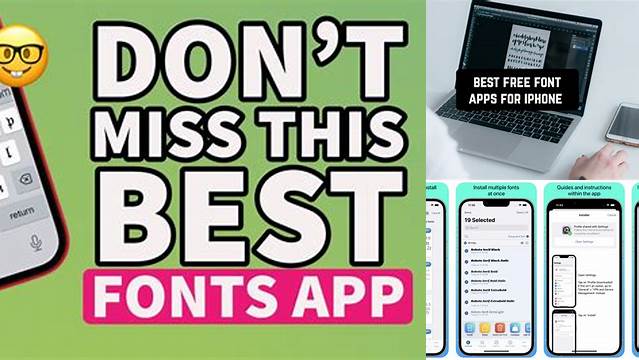
Best Free Font Apps For IPhone (No Subscription)
Hey guys! Finding the perfect font for your iPhone can be a game-changer, whether you're sprucing up your social media posts, creating eye-catching stories, or just want to add a personal touch to your texts. But let's be real, nobody wants to get stuck with yet another subscription. So, what are the best free font app for iPhone no subscription? This article dives deep into the top free font apps for iPhones that offer a variety of stylish fonts without costing you a dime. We'll explore their features, ease of use, and how they can help you elevate your content. Let's jump in and discover how to make your iPhone typography stand out without breaking the bank!
H2: Top Free Font Apps for iPhone
When it comes to finding the best free font app for iPhone no subscription, the options can seem overwhelming. But don't worry, we've done the legwork for you! There are several apps available on the App Store that offer a wide range of fonts without requiring any subscriptions. These apps typically operate on a freemium model, providing a substantial selection of fonts for free while offering additional fonts or features through in-app purchases. The key is to find an app that balances a generous free font library with an intuitive user interface. Many of these apps also integrate seamlessly with other applications on your iPhone, such as social media platforms and creative tools, making it easy to apply your favorite fonts to your projects. We'll delve into some of the top contenders, highlighting their unique strengths and font offerings, so you can make an informed decision about which app best suits your needs. Think of it as your guide to unlocking a world of typography, right at your fingertips.
H2: Font Apps Without Subscriptions
For those of us who are tired of endless subscription fees, finding a font app that doesn't lock its best features behind a paywall is a huge win. These font apps without subscriptions offer a refreshing alternative, providing access to a diverse collection of fonts without the recurring charges. It’s essential to understand how these apps typically monetize. Many offer a large selection of free fonts, supported by optional in-app purchases for premium fonts or additional functionalities. This model allows you to explore and use a wide variety of fonts without any initial investment. Finding the best free font app for iPhone no subscription doesn’t mean you’re sacrificing quality or variety. On the contrary, several apps offer high-quality fonts that rival those found in paid subscriptions. We'll explore these options, ensuring you discover an app that meets your needs without the burden of a recurring fee. These apps empower you to personalize your content and express your creativity, all while staying within your budget.
H2: Best Free Fonts for iOS
iOS is a fantastic platform for creativity, and having access to the best free font app for iPhone no subscription can truly elevate your projects. What exactly makes a font "best"? It often comes down to a combination of aesthetics, readability, and versatility. An excellent font will not only look visually appealing but will also be easy to read across various screen sizes and applications. The best free fonts for iOS offer a wide range of styles, from elegant serifs to modern sans-serifs, ensuring there's a perfect font for every occasion. Moreover, these fonts are often optimized for mobile devices, meaning they render beautifully on the smaller screens of iPhones and iPads. We'll explore some specific font styles and families that are popular among iOS users, highlighting the characteristics that make them stand out. Whether you're crafting compelling social media posts, designing presentations, or simply adding flair to your messages, having the right font can make all the difference.
H2: Free Font Apps for iPhone Social Media
Social media is a visual playground, and using the best free font app for iPhone no subscription can make your content shine. Think about it: your text is a crucial part of your social media presence, conveying your message and brand identity. Free font apps specifically designed for social media often offer a range of trendy and eye-catching fonts that can grab attention in a busy feed. These apps understand the importance of visual appeal in the social media landscape, providing fonts that are optimized for platforms like Instagram, TikTok, and Twitter. They often include features that make it easy to add text to photos and videos, adjust font sizes and colors, and create engaging captions. It's not just about aesthetics; the right font can also improve readability and ensure your message is clearly conveyed. We'll explore how you can leverage free font apps to create social media content that stands out and helps you connect with your audience. So, get ready to give your social media game a typographic upgrade!
H2: Free Font Keyboard Apps for iPhone
Imagine having a wide selection of stylish fonts right at your fingertips, directly on your iPhone keyboard. That's the magic of free font keyboard apps! These apps replace your standard iOS keyboard with a custom keyboard that allows you to type in a variety of fonts across different applications. This makes it incredibly easy to add flair to your texts, emails, social media posts, and more. Finding the best free font app for iPhone no subscription that also functions as a keyboard app is a game-changer for anyone who loves to personalize their communications. These apps often come with a range of customization options, allowing you to adjust keyboard colors, themes, and even add emojis. The convenience of having these fonts directly on your keyboard can save you time and effort, making it easier than ever to express your personality through typography. We'll delve into the features and benefits of free font keyboard apps, highlighting how they can transform your typing experience.
H2: Font App for iPhone No Subscription Needed
The phrase “no subscription needed” is music to the ears of anyone tired of monthly fees. Finding the best free font app for iPhone no subscription means you’re looking for a tool that offers substantial value without the recurring cost. These apps typically operate on a freemium model, offering a solid selection of fonts for free, with the option to purchase additional fonts or features as needed. This approach gives you the flexibility to explore a wide range of typography options without committing to a subscription. The key is to find an app that provides a robust free offering, so you're not constantly feeling pressured to upgrade. These apps are a fantastic resource for anyone who wants to enhance their iPhone typography without breaking the bank. We'll explore the nuances of these no-subscription apps, helping you identify the ones that truly deliver on their promise of free access to great fonts.
H2: Best Font Editor App for iPhone Free
While many font apps focus on providing a selection of pre-designed fonts, a font editor app takes things a step further by allowing you to customize fonts or even create your own. Finding the best free font app for iPhone no subscription that also includes editing capabilities can open up a whole new world of creative possibilities. These apps often provide tools for adjusting font weights, spacing, and other characteristics, allowing you to fine-tune existing fonts to your liking. Some even offer drawing tools that let you create entirely new fonts from scratch. A free font editor app can be incredibly valuable for designers, artists, and anyone who wants to express their unique style through typography. We'll explore the features and capabilities of free font editor apps for iPhone, highlighting how they can empower you to take your font game to the next level.
H2: Free Fonts for iPhone Texting
Texting is a daily activity for most iPhone users, so why not make your messages stand out with unique fonts? There are plenty of options for adding personality to your texts, and finding the best free font app for iPhone no subscription that integrates with your messaging apps is key. Some apps offer custom keyboards that allow you to type directly in different fonts, while others let you copy and paste stylized text into your messages. The right font can convey emotion, add emphasis, and simply make your texts more visually appealing. It's not just about aesthetics; using different fonts can also help you differentiate between messages and organize your conversations. We'll explore how you can use free font apps to transform your texting experience, adding a personal touch to every message you send.
H2: Free Font Apps for iPhone Writing
In conclusion, finding the best free font app for iPhone no subscription is totally achievable with so many great options available. You can level up your text game without spending a dime. So, go ahead and explore these apps and unleash your inner typography artist!